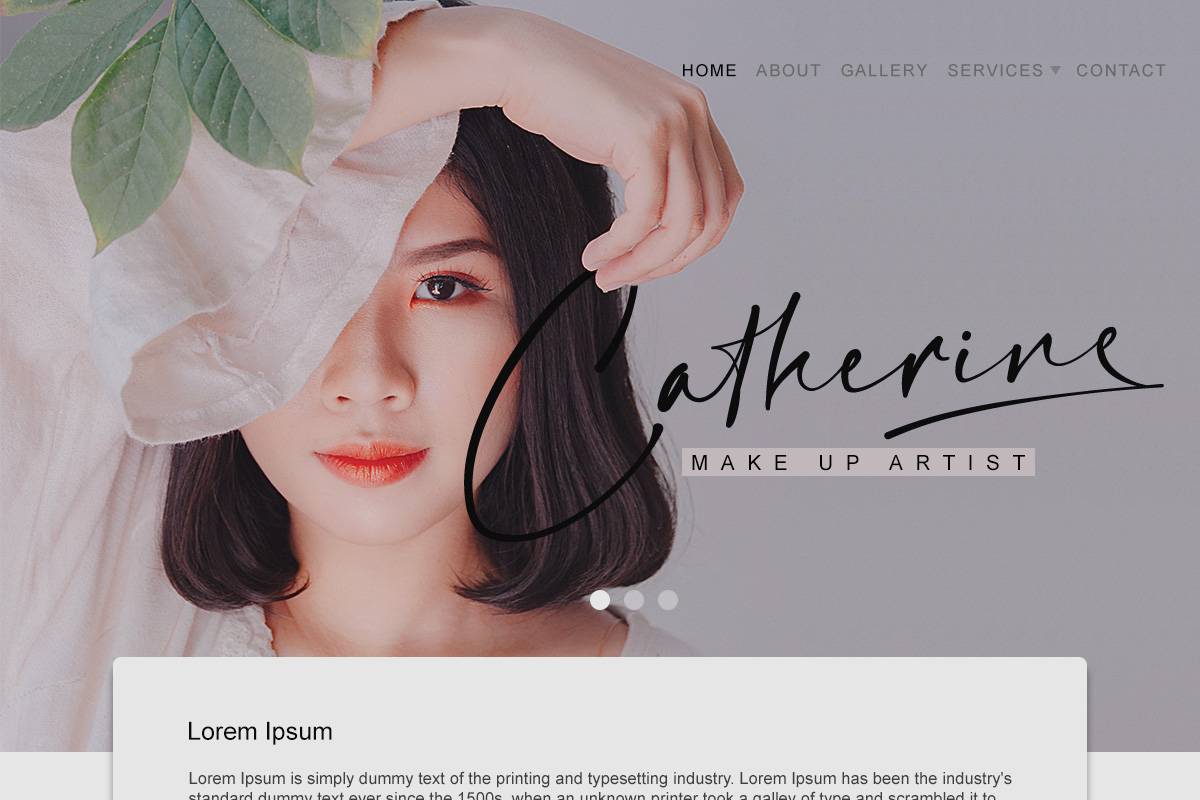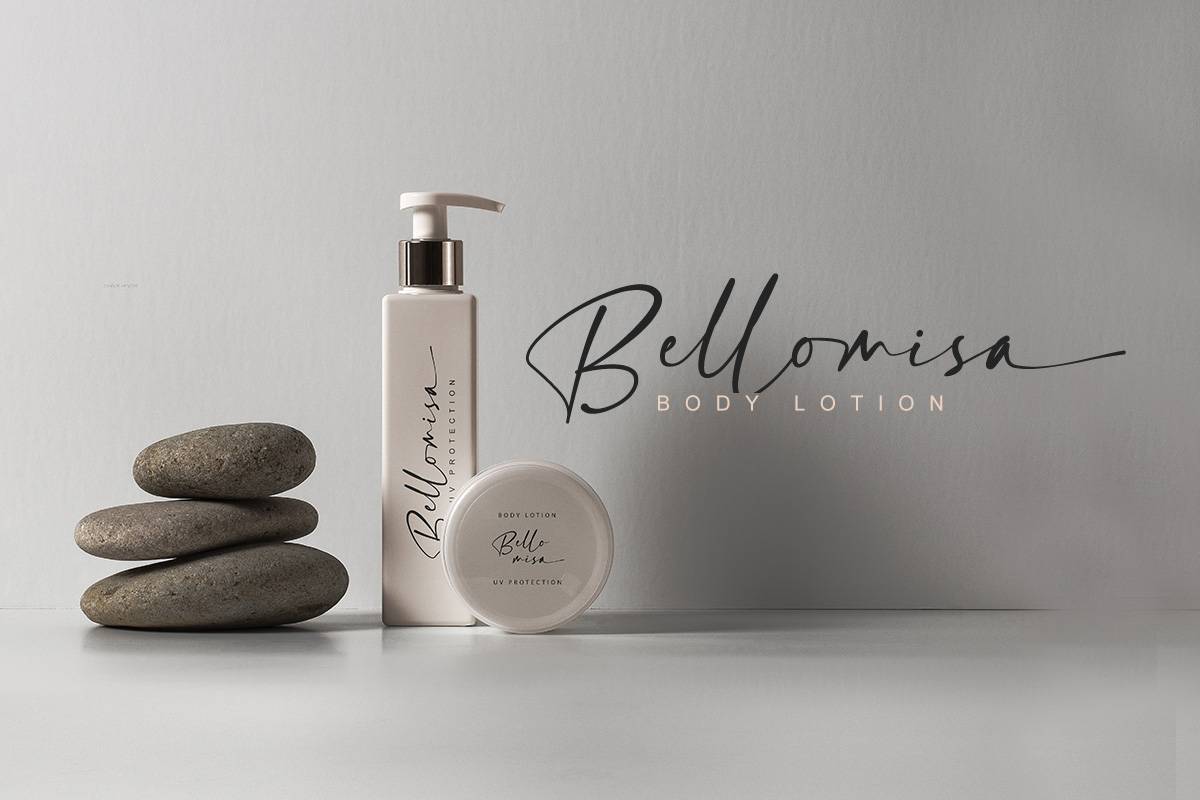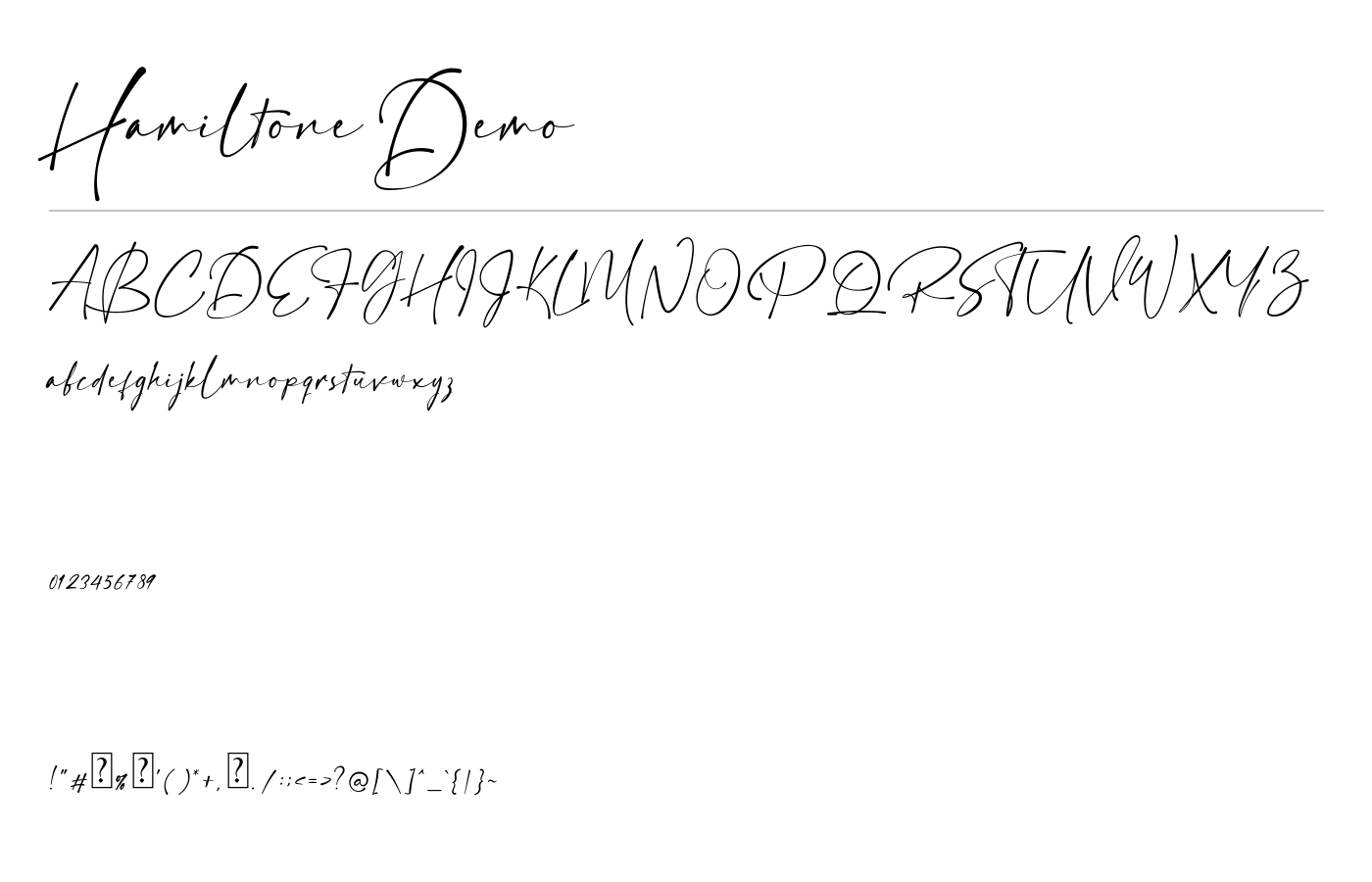
Hamiltone Signature Font is an elegant, handwritten script that captures a natural, flowing style with its delicate, varying stroke widths and graceful letterforms. Its tall, slender letters with a casual yet refined feel make it perfect for luxury branding, invitations, and stylish logos that seek a personal, sophisticated touch. This font brings a modern, artistic flair to designs that want to convey authenticity and elegance.
Hamiltone Signature Font
About Hamiltone Signature Font